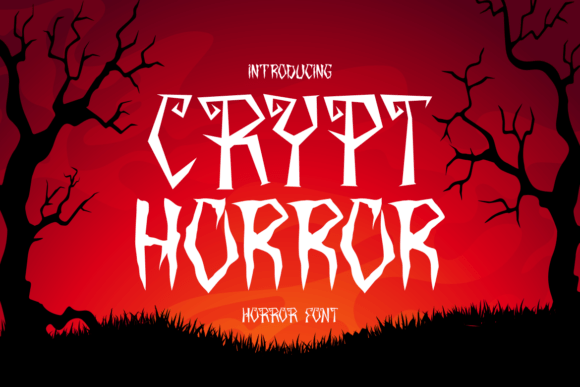
Unleashing the Darkness: Introducing Crypt Horror Font
Have you ever stared into the darkness of a forest, feeling the weight of an unseen presence lurking just beyond the trees? That’s the kind of eerie atmosphere the Crypt Horror Font is designed to evoke. This terrifyingly sharp horror display font is built to deliver chills with every letter, perfect for designers looking to create a sense of foreboding and dread in their work.
With its twisted, jagged serifs and uneven cuts, the Crypt Horror Font is the perfect tool for crafting haunting visuals that will leave your audience shivering. Its versatility makes it ideal for branding campaigns, sticker designs, dark-themed invitations, thriller headlines, and edgy underground band logos. Whether you’re designing a black metal zine or a haunted movie poster, the Crypt Horror Font is sure to add an air of mystery and terror to your work.
Crypt Horror Font Key Features
- Unique Characteristics: Crypt Horror Font features a unique blend of horror and mystery elements, with intricate details and eerie textures that evoke a sense of foreboding and dread.
Crypt Horror Font Review
As a designer, I was excited to dive into the Crypt Horror Font and see if it lived up to its spooky name. Here’s my honest review.
- Unique, gothic-inspired design: The Crypt Horror Font has a distinct, eerie feel that’s perfect for Halloween-themed projects or horror movies.
- Wide range of weights: The font comes in several weights, from thin to bold, allowing for a lot of flexibility in design.
- Good for display text: The font’s ornate details and bold lines make it well-suited for display text, such as titles and headings.
- Difficult to read at small sizes: The font’s intricate details can make it hard to read when used at small sizes, such as in body text.
- Limited language support: The font may not be optimized for languages that require a lot of diacritics or special characters.
- Not ideal for body text: While the font is great for display text, it may not be the best choice for body text due to its complex design and limited legibility.
Overall, I think the Crypt Horror Font is a great addition to any designer’s toolkit, but it’s not a one-size-fits-all solution. Use it for its strengths, and be mindful of its limitations.
Tips for Getting the Most Out of Crypt Horror Font
Use Crypt Horror Font to create eerie and mysterious designs for horror-themed projects, such as movie posters, book covers, or even Halloween decorations.
Experiment with different font sizes and colors to create a sense of depth and atmosphere.
Combine Crypt Horror Font with other design elements, such as creepy images or illustrations, to create a cohesive and unsettling visual identity.
Crypt Horror Font is perfect for:
Horror movie posters and book covers
Halloween decorations and party invitations
Creepy social media graphics and ads
Alternatives to Crypt Horror Font